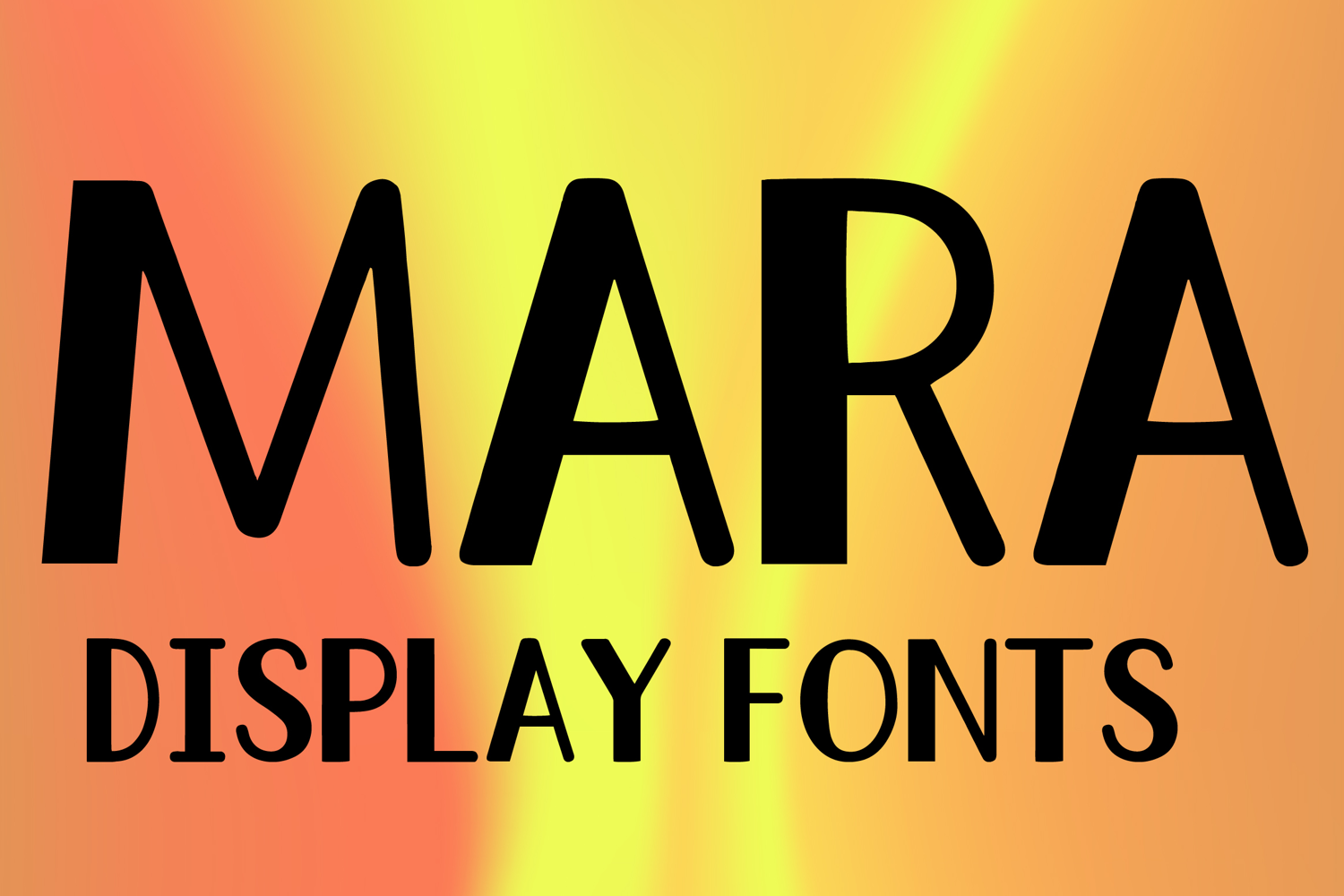
MARA
MARA is a modern display font with a tall minimalist style and clean geometric character. Its uppercase letterforms feature slim elongated strokes, balanced proportions, and sharp angular structure that create a sleek, stylish, and eye-catching look. Designed with uppercase letters A–Z and numbers 0–9, MARA is perfect for branding, posters, packaging, logos, headlines, and social media graphics that need a refined and memorable statement.